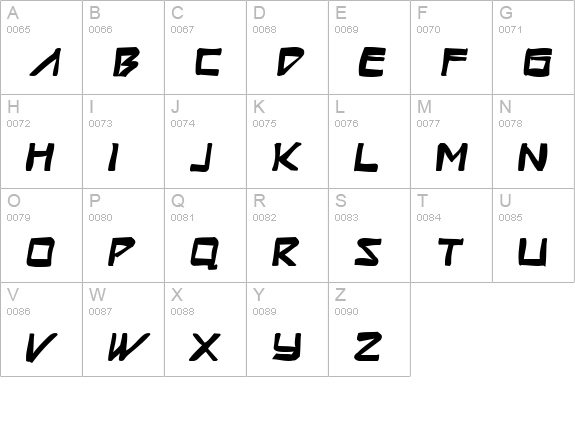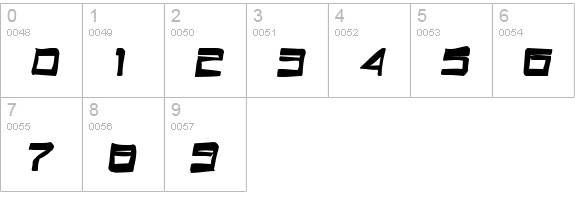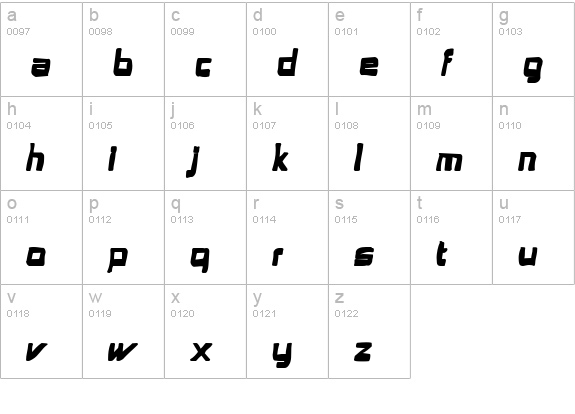
Astron Boy Ink font is a bold and futuristic typeface that exudes creativity and modernity. With its sleek lines and edgy style, this font is perfect for projects that require a touch of contemporary flair. Whether you're designing posters, logos, or branding materials, Astron Boy Ink will make your text stand out with its unique charm. This versatile font is not only visually appealing but also highly legible, making it suitable for a wide range of design applications. Its distinctive ink-like texture adds a touch of artistic flair, giving your designs a handcrafted and personalized feel. Best of all, Astron Boy Ink font is completely free to download at FontsMarket.com. So go ahead and unleash your creativity with this stylish and modern typeface. Stand out from the crowd and make a statement with Astron Boy Ink font today!